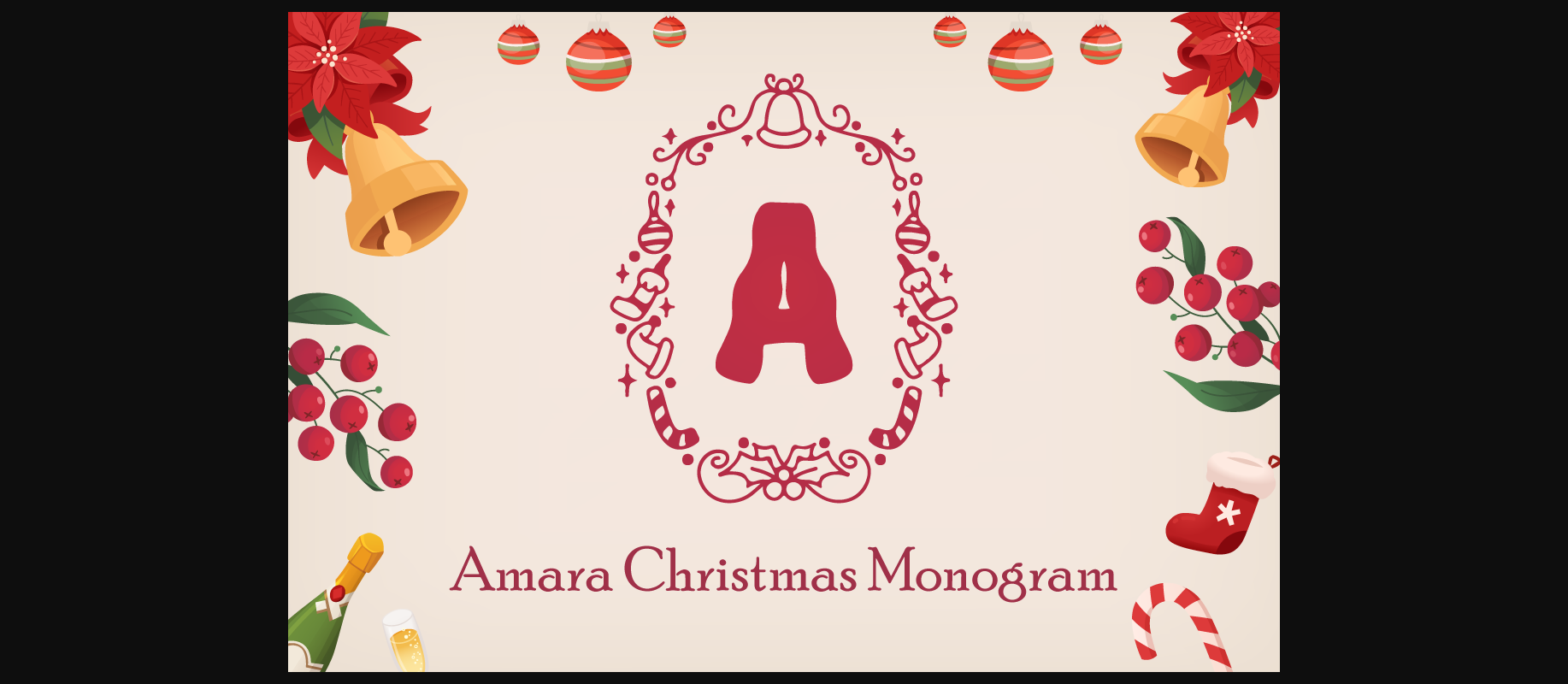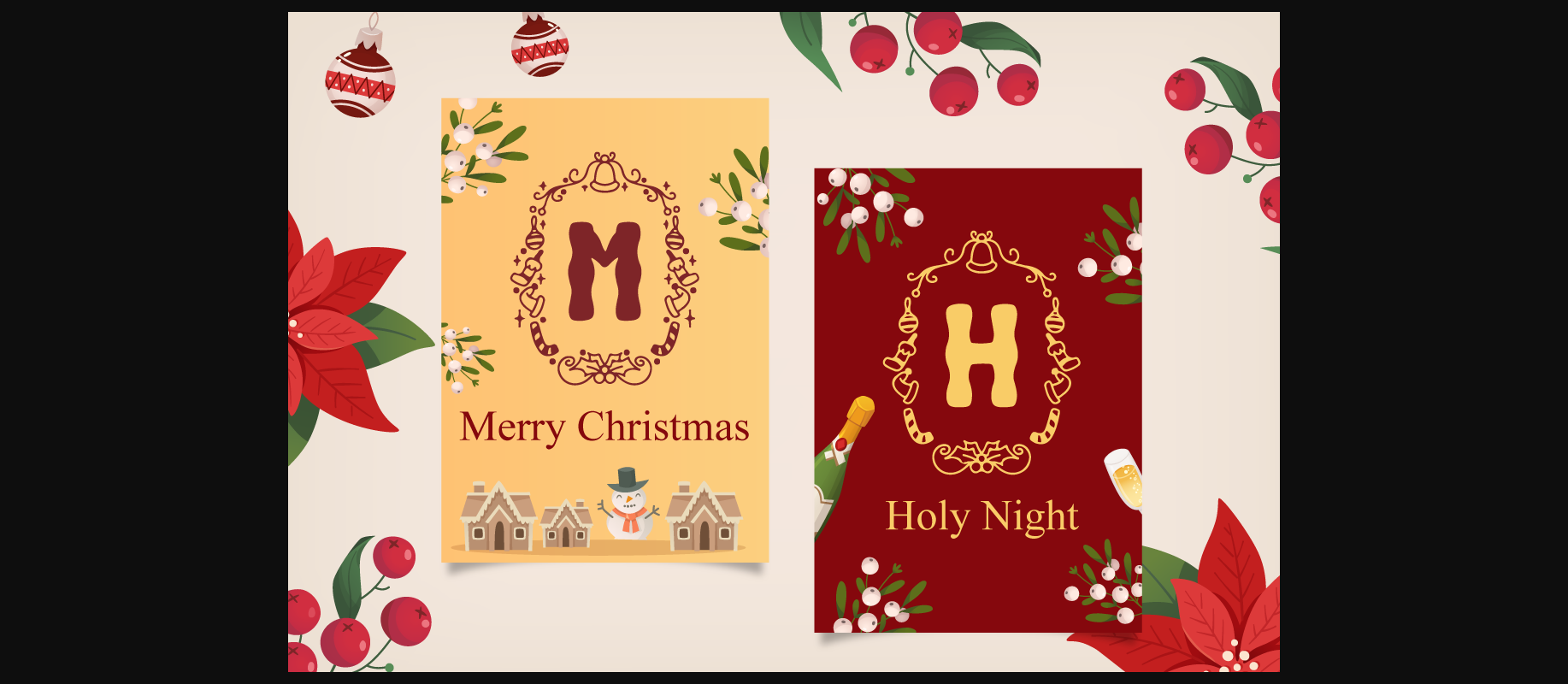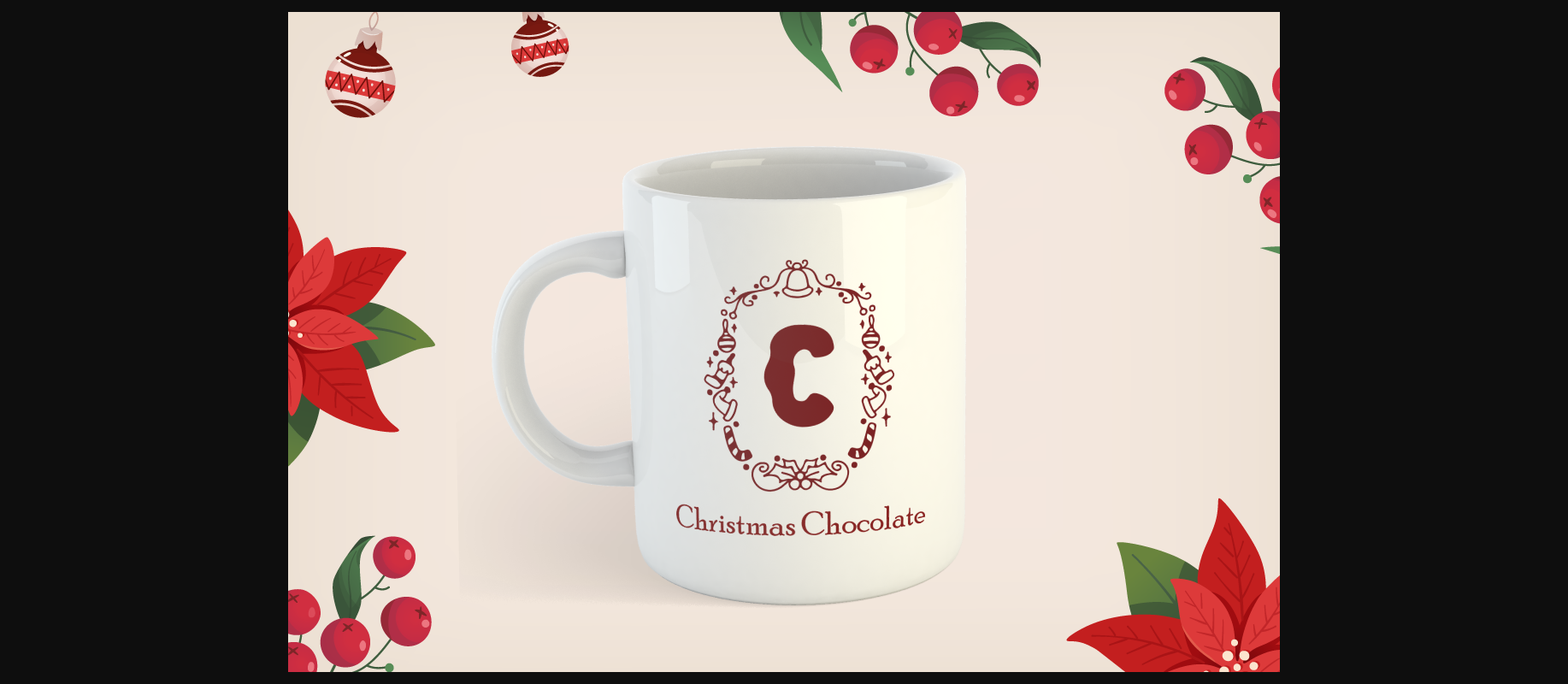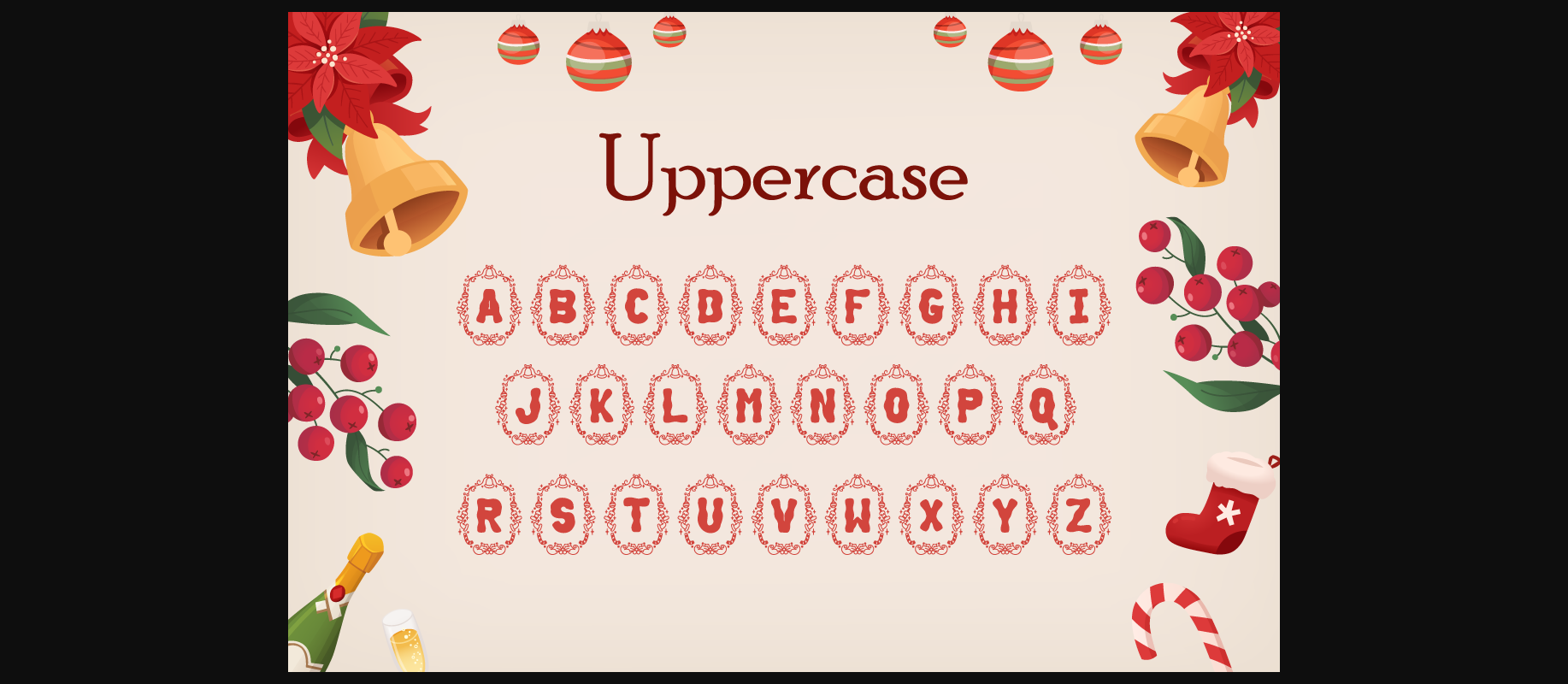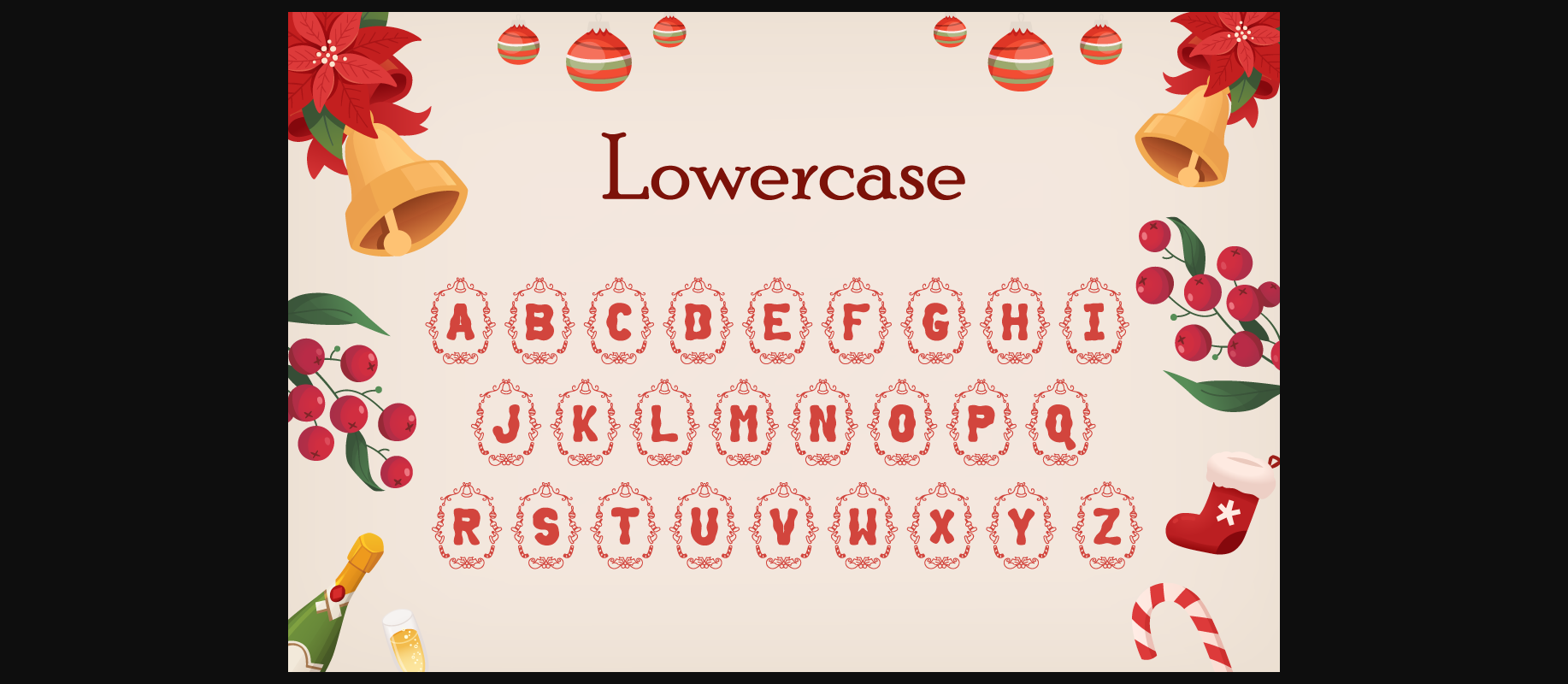
About Amara Christmas Monogram Font
Amara Christmas Monogram is a festive, warm and unique decorative font. Whether you are using it for cartoon-related designs, children games, quotes, titles, brand names, book covers, posters, or just any creation that requires a touch of joy, this font is a great choice.